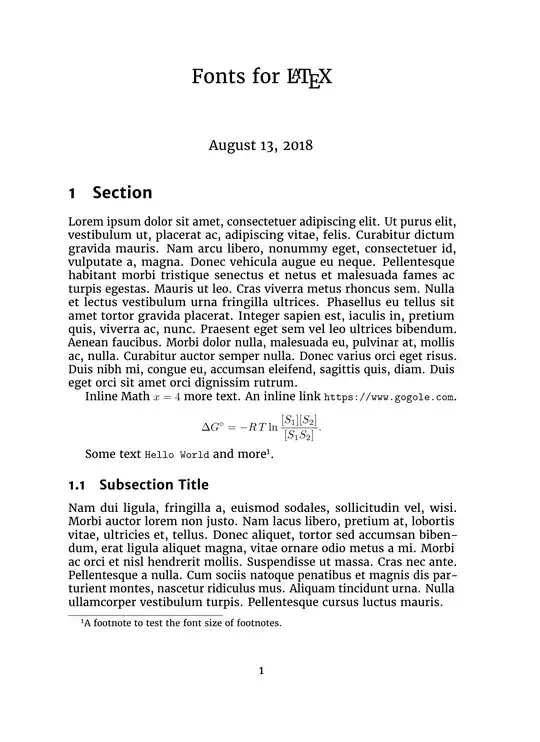
I would like to use Merriweather as my serif font but the default font size is too large and it makes the document look out of balance.
How can I make Merriweather smaller so that it fits better with other fonts? I don't want to scale all fonts (using relscale) because this would still not balance the fonts. If I make the sans-serif font larger, the footnotes and image captions are still bad.
Below is the sample document I'm using.
With Merriweather: With Merriweather
Default font: Default font
With libertine: With libertine
• You can use scale= to scale the font (size) and one of the other package options to control the weight. – TeXnician Aug 13 '18 at 20:24
The default maths font (Computer Modern) does not fit well Merriweather! – Bernard Aug 13 '18 at 21:10
• I really, really hope you won't be typesetting math in a document with Merriweather as the main text font. It's not just a question of relative size, as your first image clearly shows. – egreg Aug 14 '18 at 08:33
• @egreg You mean I should not typeset math at all if I use Merryweather or I should not set math in Merryweather? I'm not doing the latter. – dominik Aug 15 '18 at 15:22
• The Computer Modern math fonts are visually incompatible with Merryweather; if you don't find a matching math font, math in your document will be a punch in the eye. – egreg Aug 15 '18 at 15:30
• I found https://tex.stackexchange.com/questions/312469/math-font-family-for-merriweather-black-font-family as a starting point. – dominik Aug 16 '18 at 16:15
There is no option to scale the serif font, the scale option scales only the sans serif, but you can redefine the internal scale command:
I decreased the font to 10 pt and slightly increased the character of the mathematical font. I hope it's okay. See also this link: http://www.ctex.org/documents/packages/special/moresize.pdf to page 5.